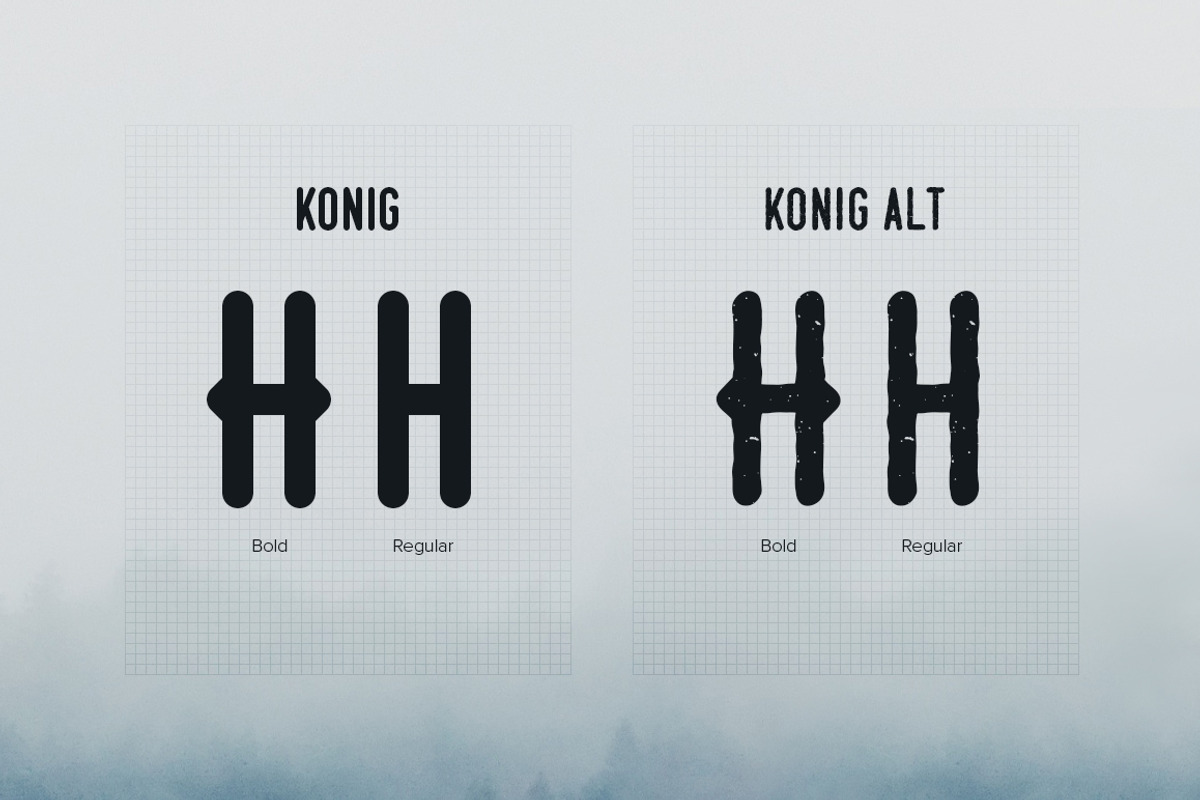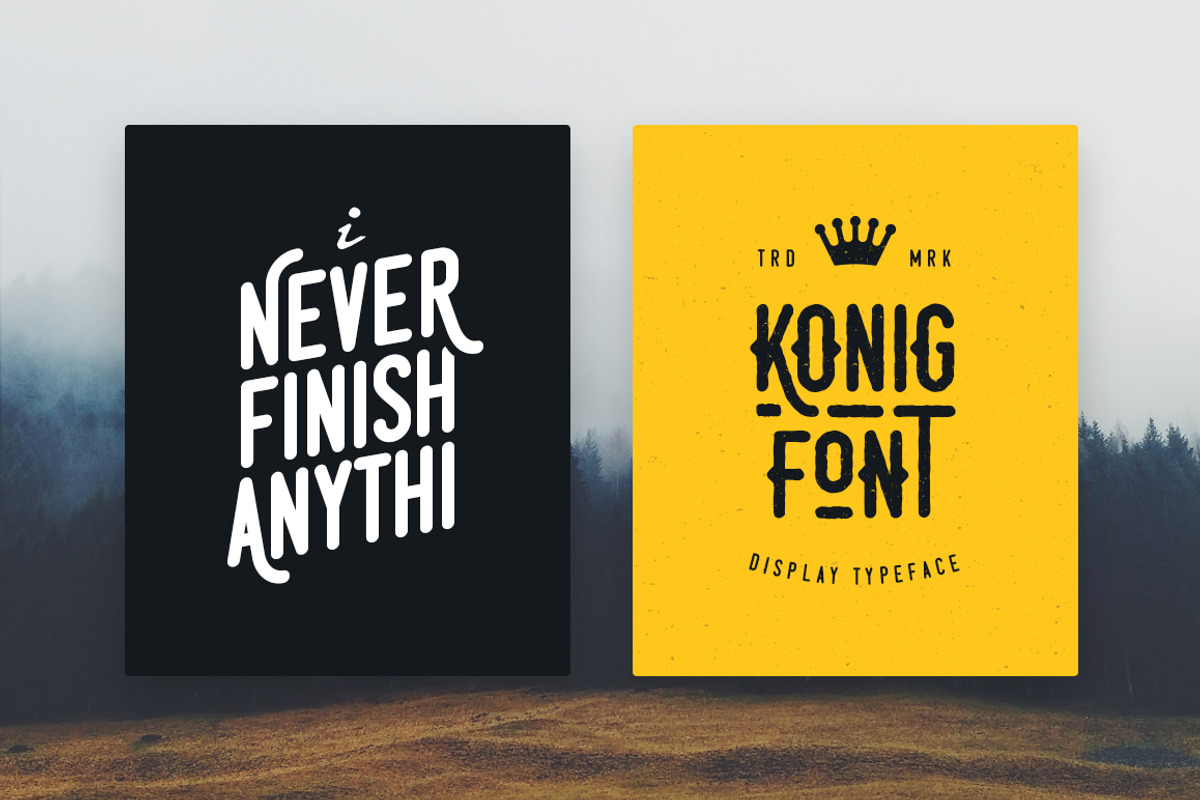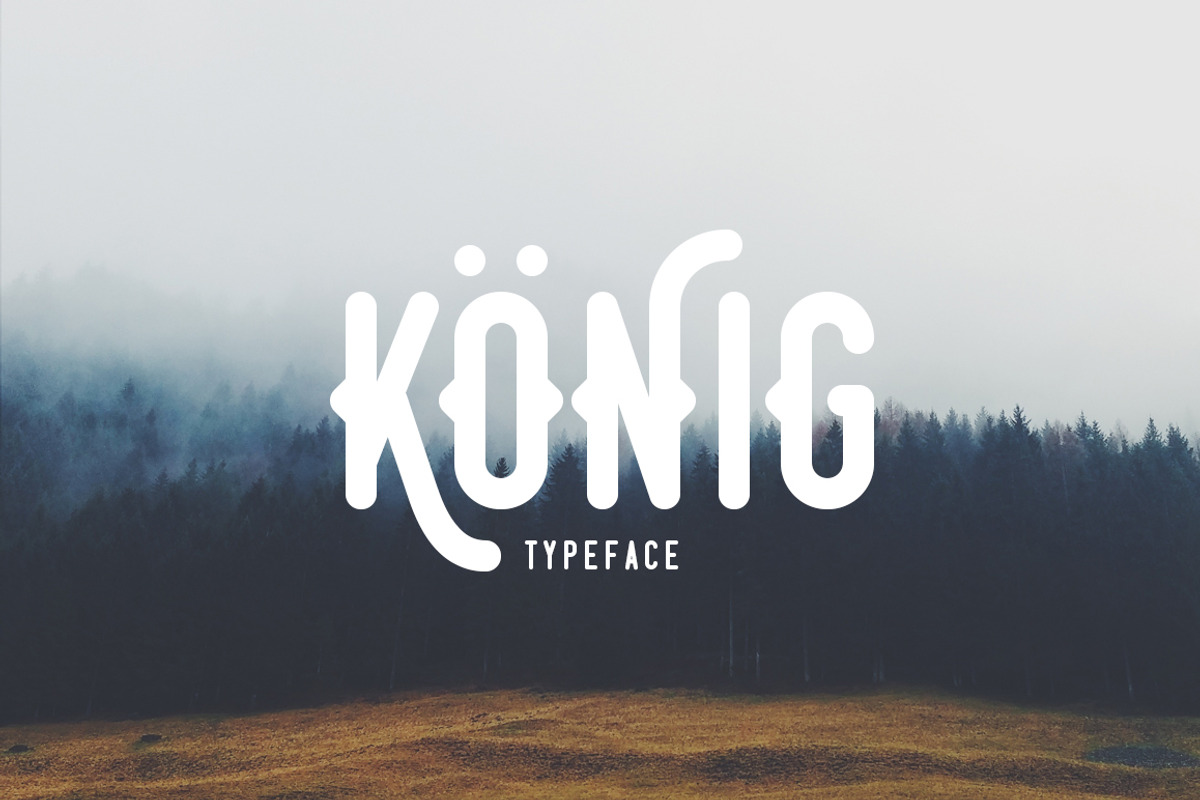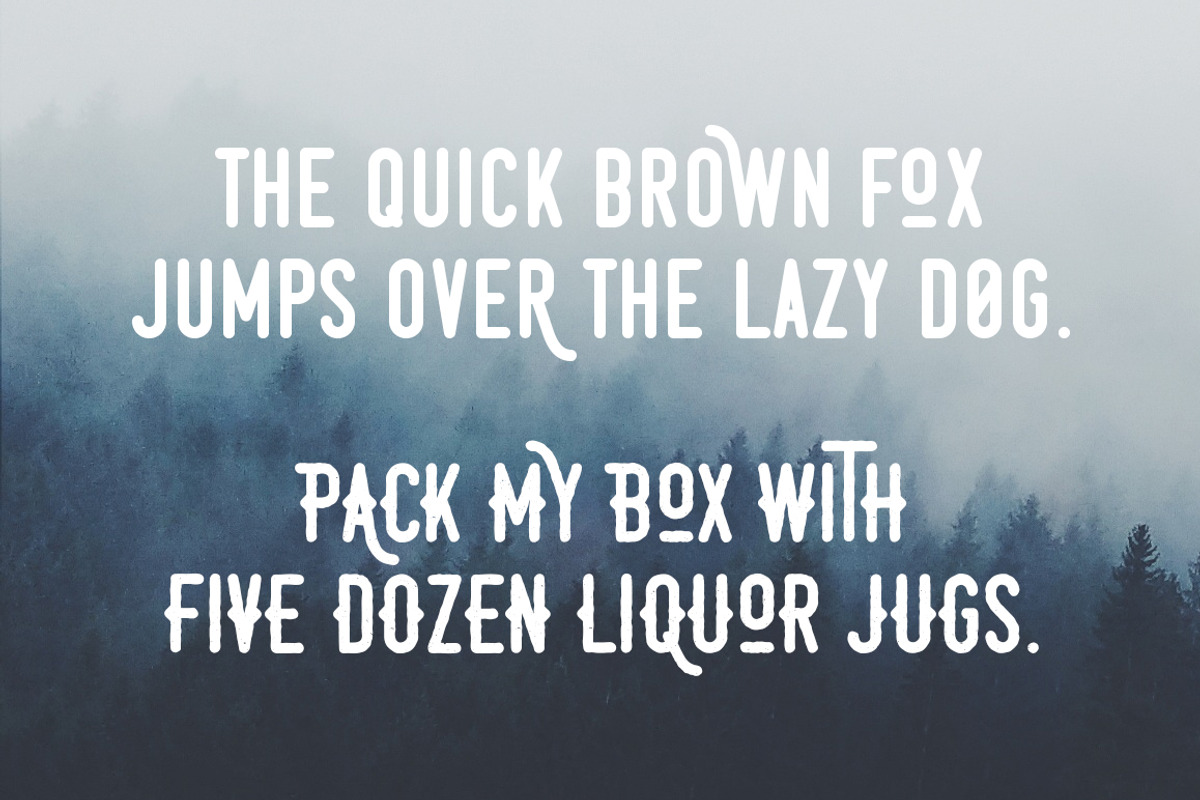
Konig Typeface
Konig Typeface by Victor Barac is a font selected for branding, posters, packaging, typography.
- It features four styles alternatives and international characters.
- Konig Regular
- Konig Bold
- Konig Alt Regular
- Konig Alt Bold
Why Konig Typeface is worth a look
Konig Typeface by Victor Barac fits naturally into Branding, posters, packaging, typography.